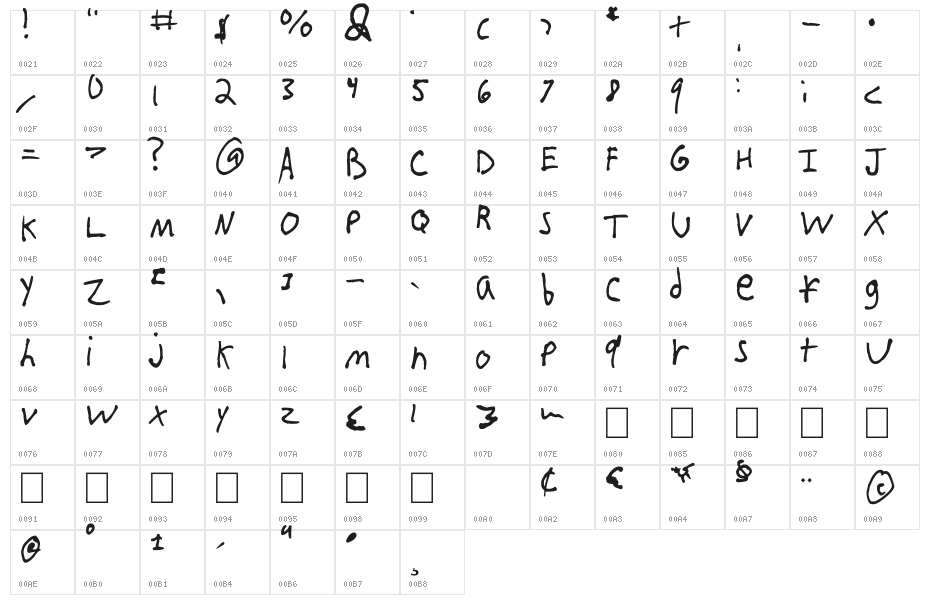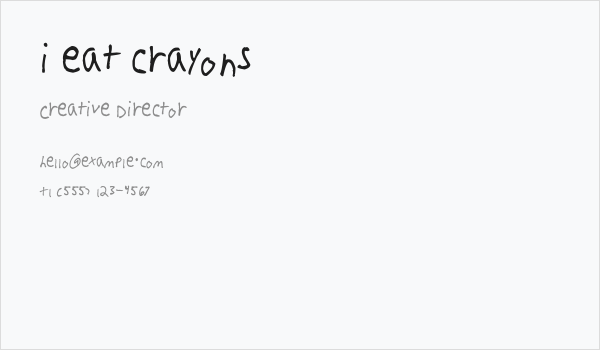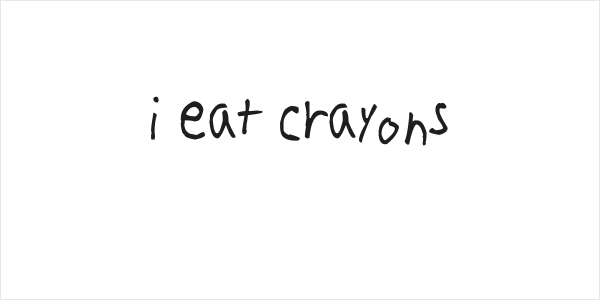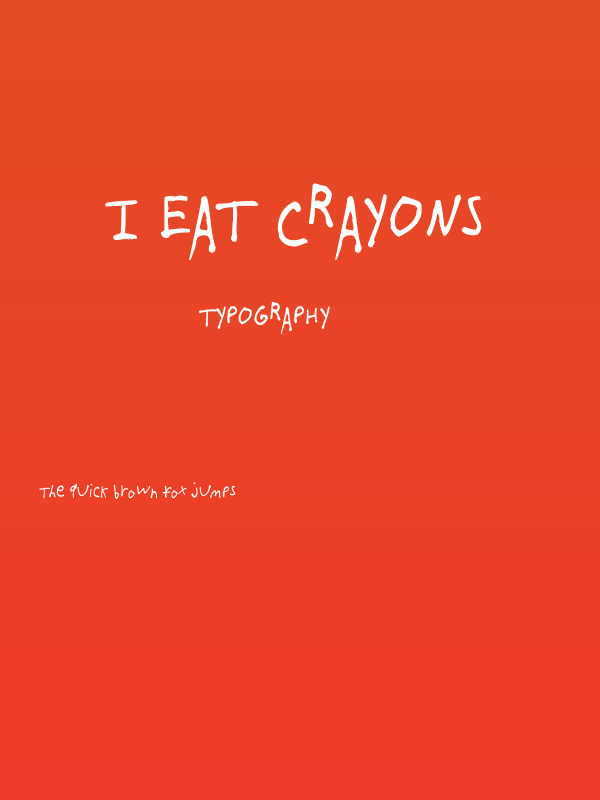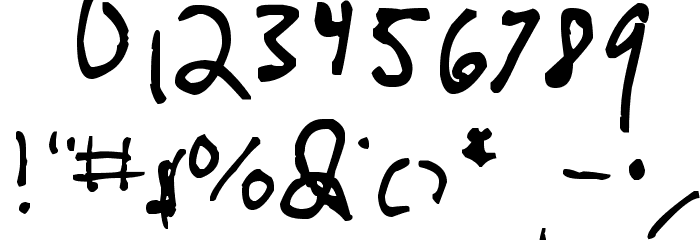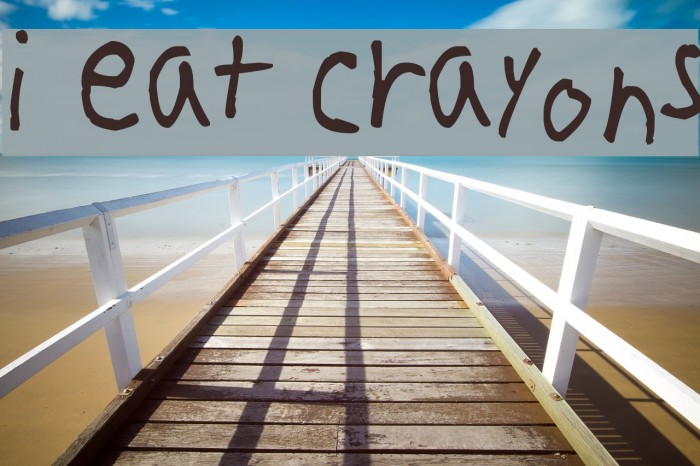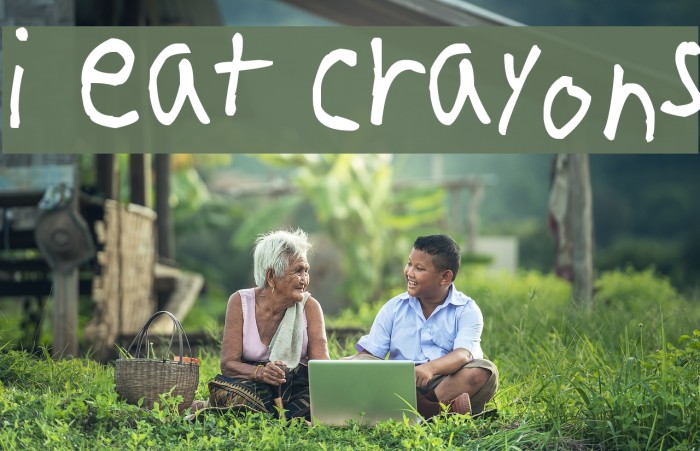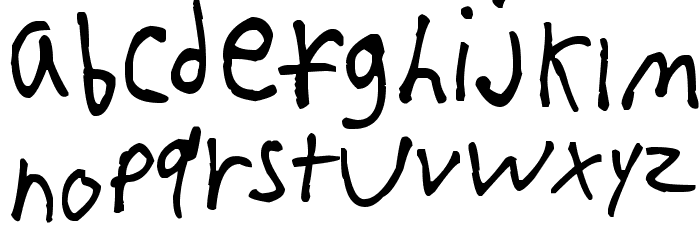
i eat crayons Font
i eat crayons Description
This playful and whimsical font mimics the look of hand-drawn letters with a crayon-like texture. The characters are uneven and slightly irregular, giving it a casual and informal appearance. The strokes are thick and bold, with a rough, textured edge that adds to its childlike charm. The font maintains a consistent baseline, but the heights of the letters vary, enhancing its playful nature. It includes a full set of uppercase and lowercase letters, numbers, and a variety of special characters, making it versatile for creative projects.
| Overall Style | Playful |
| Proposed Projects | Ideal for children's books, playful branding, casual invitations, and creative posters. |